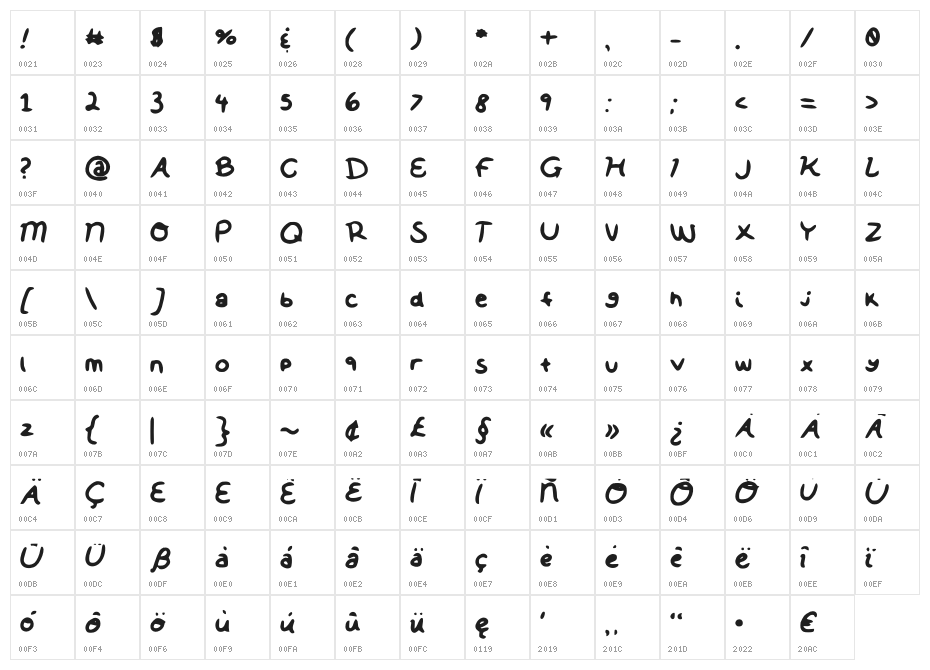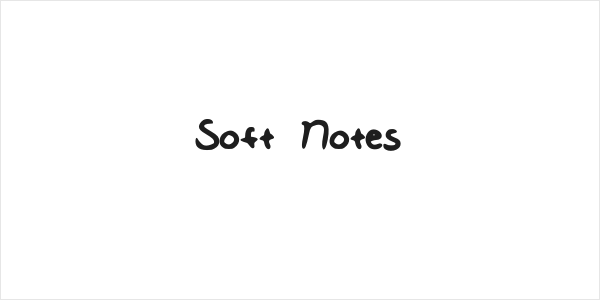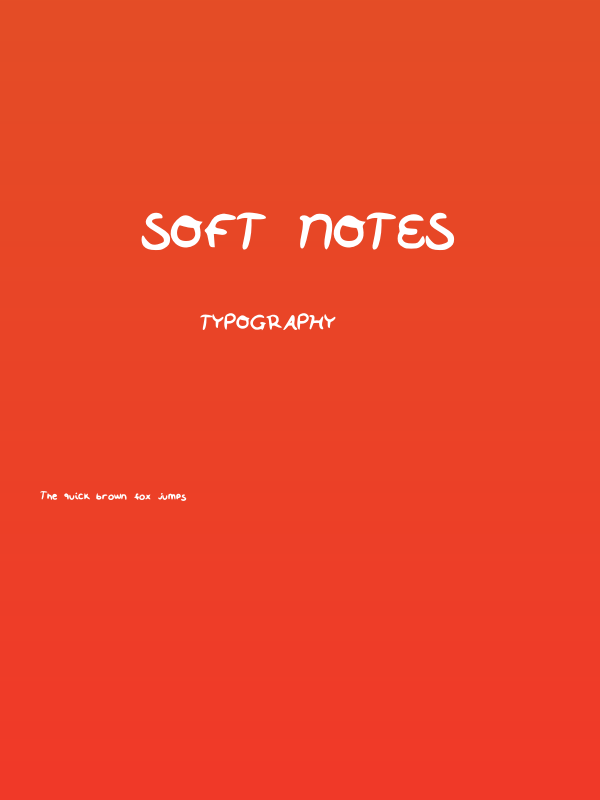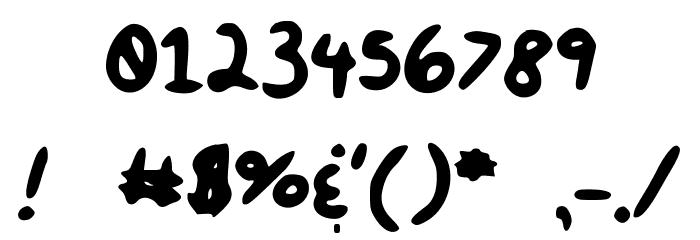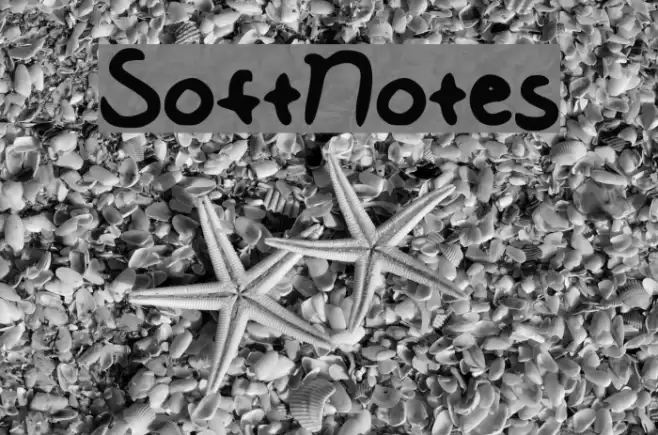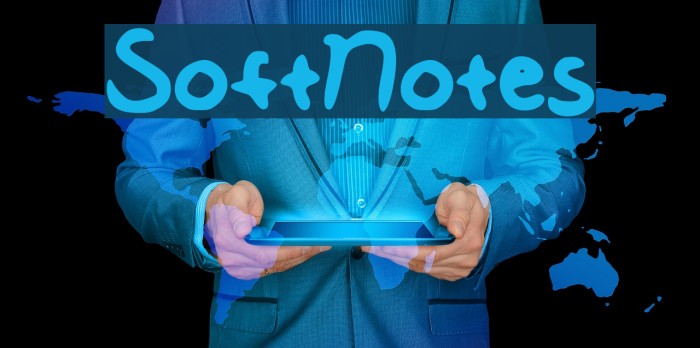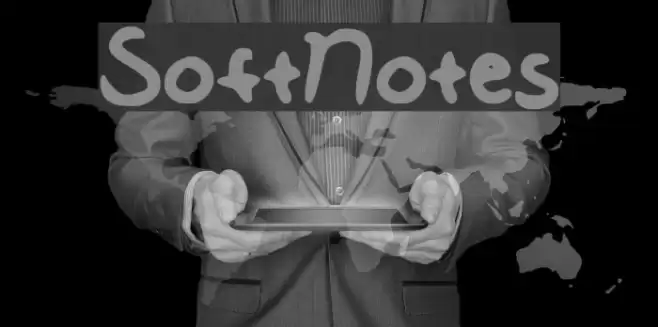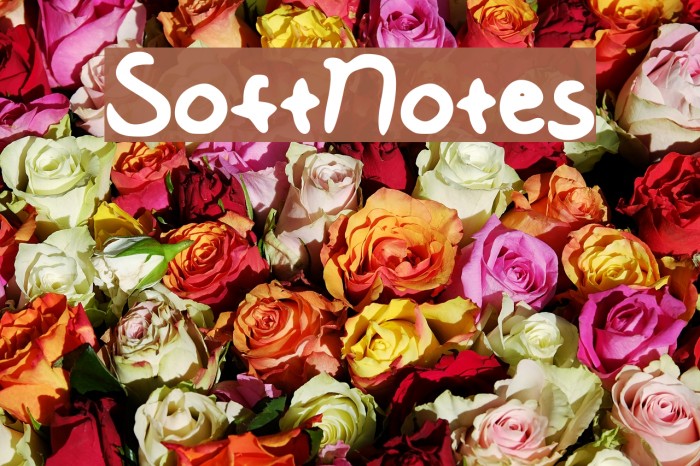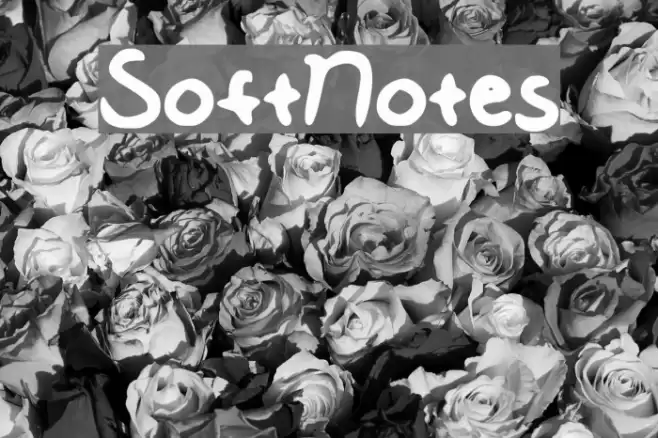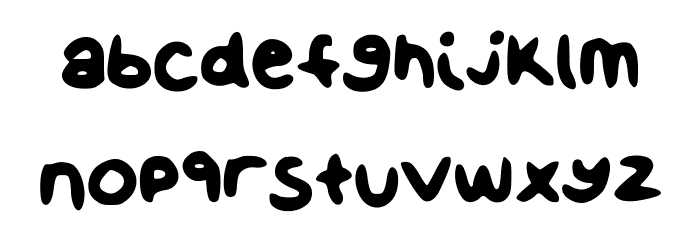
Soft_Notes Font
Soft_Notes Description
This playful and whimsical font features a handwritten style with rounded, soft edges that give it a friendly and approachable appearance. The characters are bold and slightly irregular, adding to the casual and informal feel. The uppercase and lowercase letters maintain a consistent style, with a slight tilt that enhances the handwritten effect. Numbers and special characters are designed to match the overall aesthetic, ensuring a cohesive look across all text. The font's unique charm makes it suitable for creative projects that require a personal touch.
| Overall Style | Playful |
| Use Case | Logos, Headlines, Informal Text |
| Proposed Projects | Ideal for children's books, greeting cards, playful branding, and casual invitations. |